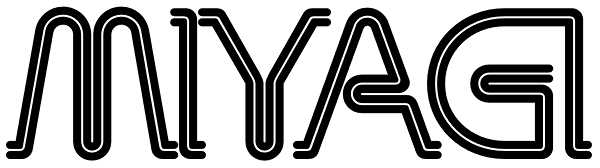
Miyagi
Miyagi brings the classic Yagi Link Double to the digital world, a modern form for a timeless typeface. Miyagi pays tribute to the decade it was created while pushing it into the boundaries of the future as well, a double image to match its double...